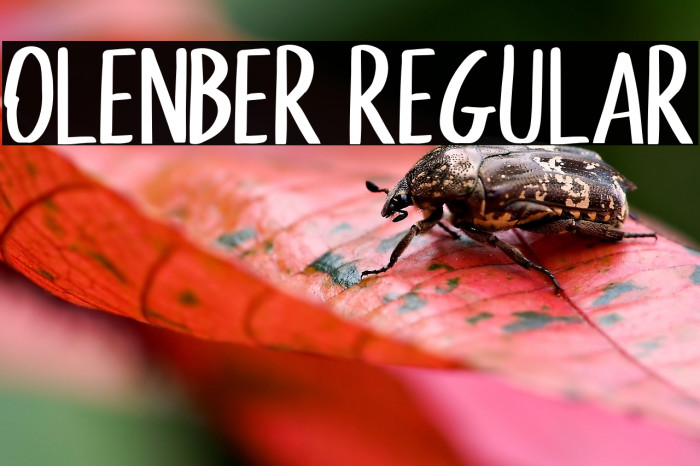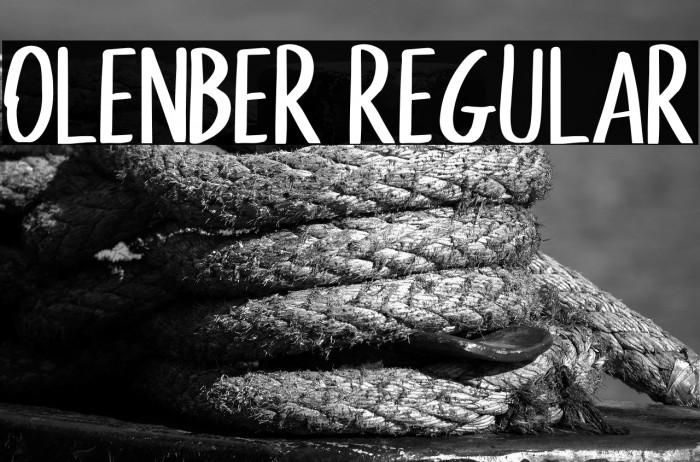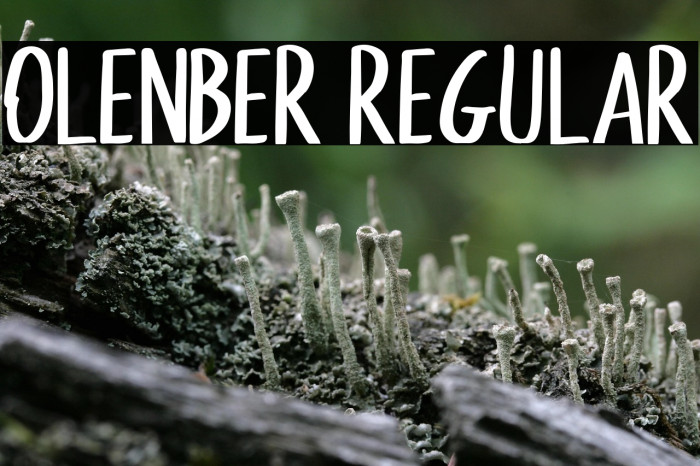
Olenber Regular Font
Olenber Regular Description
This font features a playful and energetic style with tall, narrow letters that have a hand-drawn appearance. The strokes are consistent in width, giving it a uniform look while maintaining a casual, informal vibe. The characters are slightly irregular, adding to the whimsical and friendly feel. The font includes both uppercase and lowercase letters, numerals, and a variety of special characters, making it versatile for different design needs. Its unique style makes it stand out, perfect for projects that require a touch of personality and creativity.
| Proposed Projects | Ideal for children's books, playful branding, greeting cards, and creative posters. |